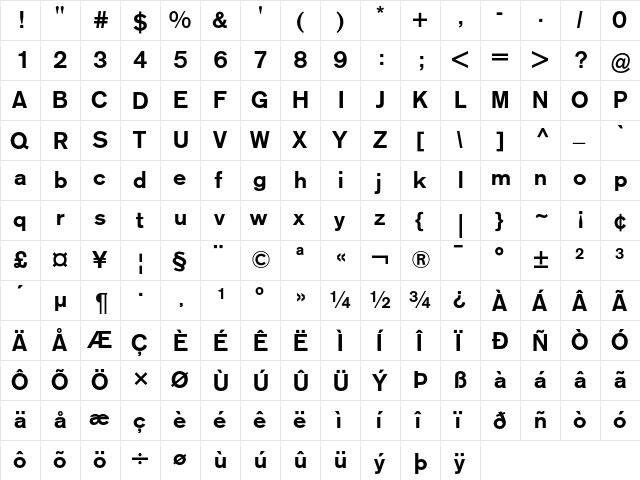
AG Old Face Medium
Design Context for AG Old Face Typeface
AG Old Face takes a measured approach to typography — its balanced proportions and neutral character make it a reliable workhorse for both digital and print work.